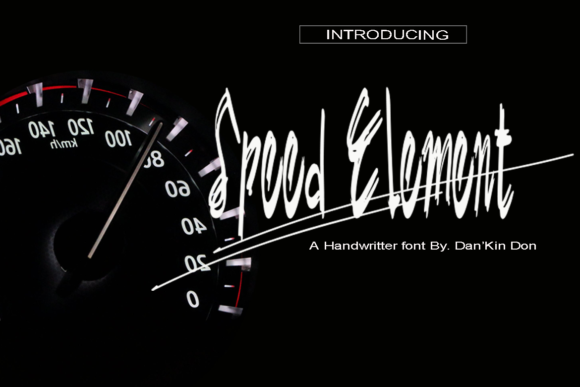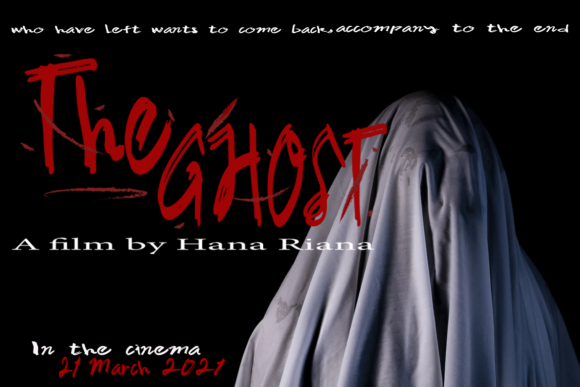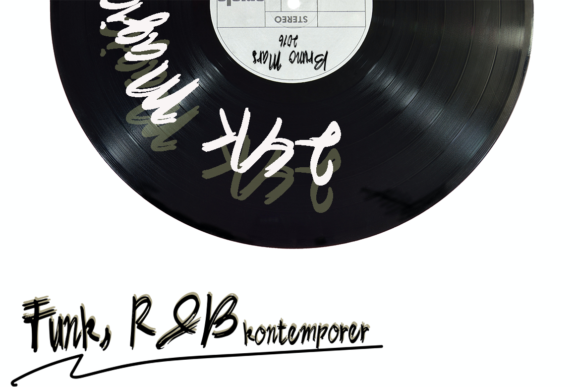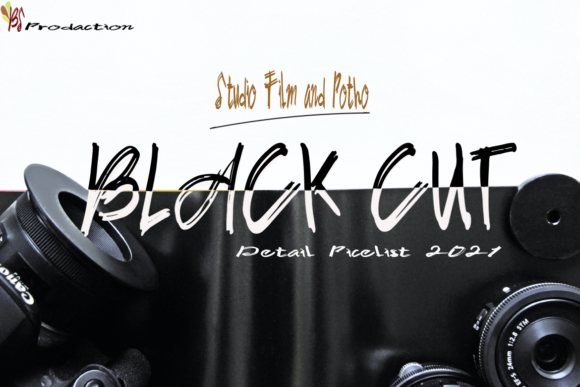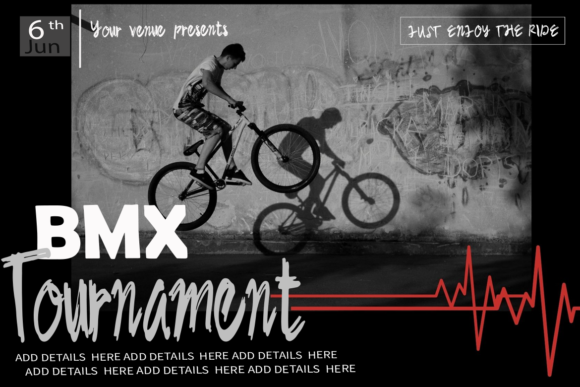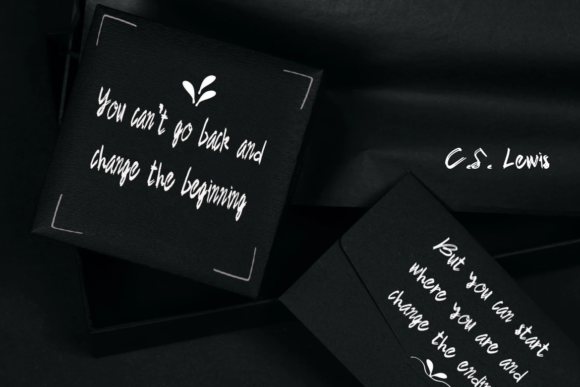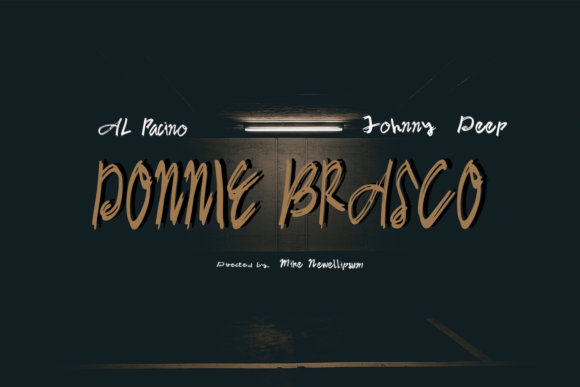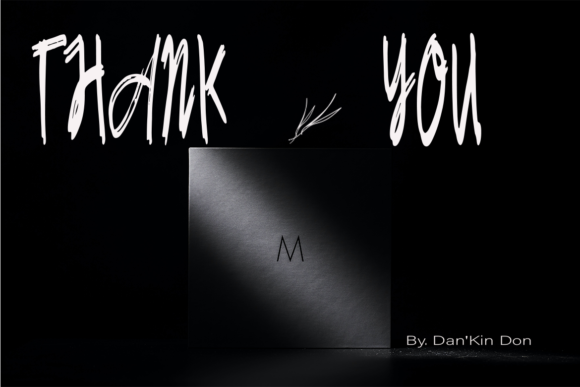
Speed Element Font
About Speed Element Font
Speed Element is a flowing and elegant handwritten font. Whatever the topic, this font will be a wonderful asset to your font library, as it has the potential to enhance any creation.